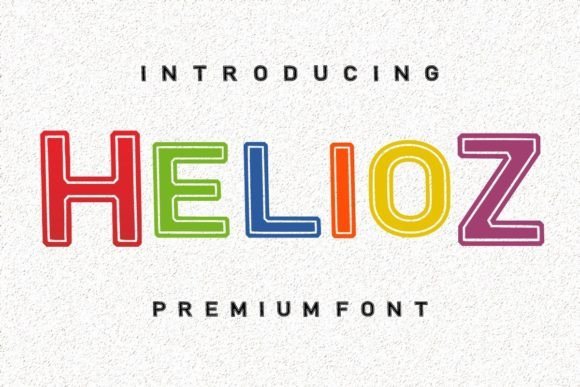
Introduction to Helioz Font
Helioz is a childish, bold, easy-to-read display font that conveys impeccable friendliness.
Whether you’re using it for crafts, digital design, presentations, or greeting cards, this font has the potential to become your favorite go-to font, no matter the occasion .
Why Choose Helioz Font?
Helioz Font offers exceptional quality and versatility, making it a valuable addition to your design toolkit. Whether you’re creating for personal projects or commercial use, Helioz Font delivers professional results.